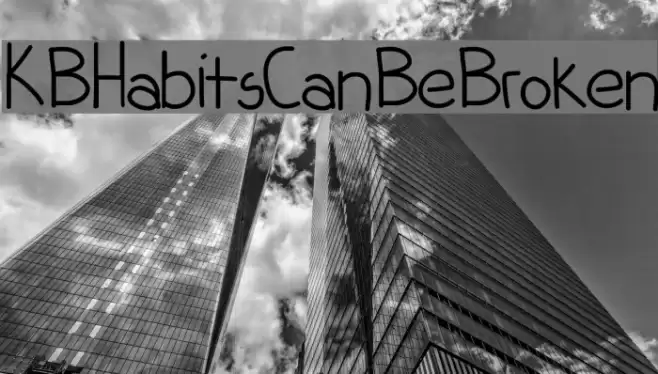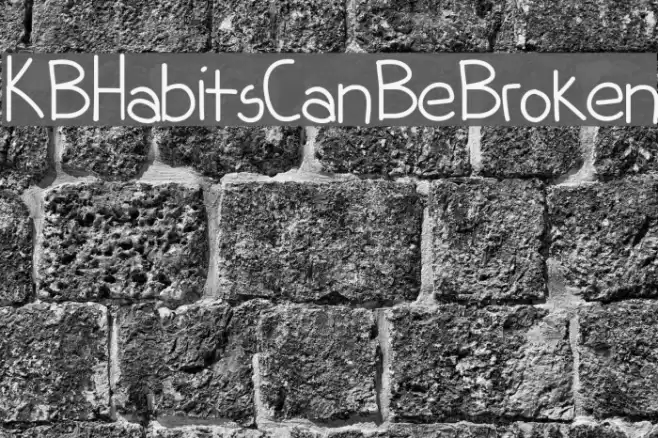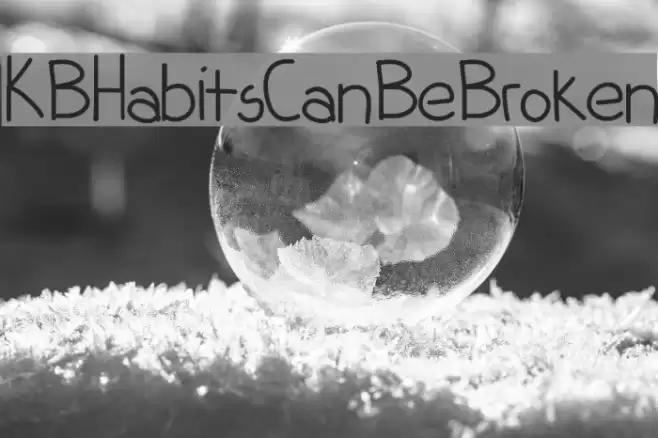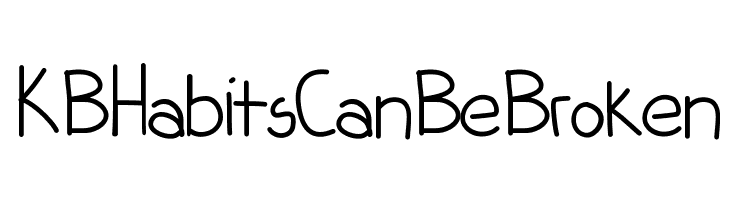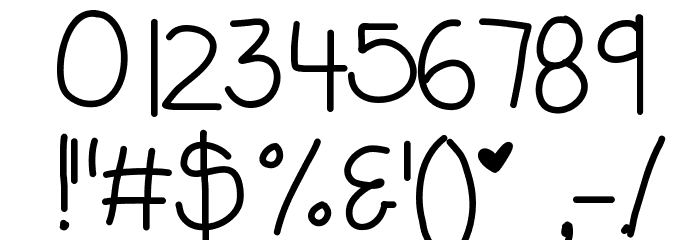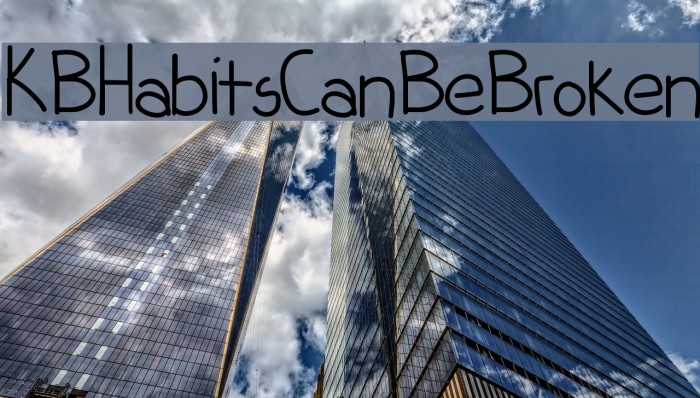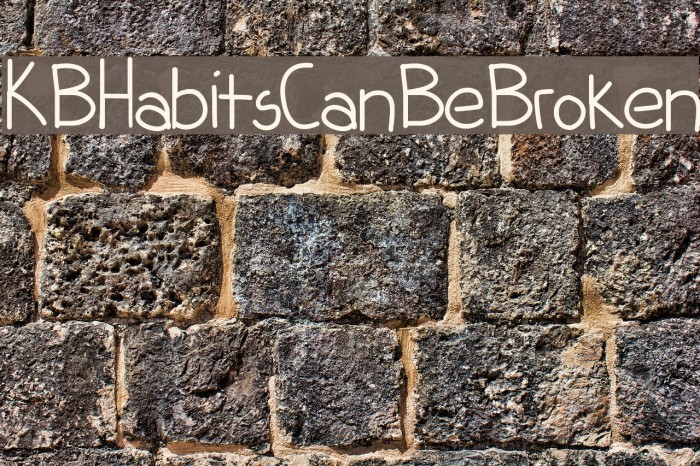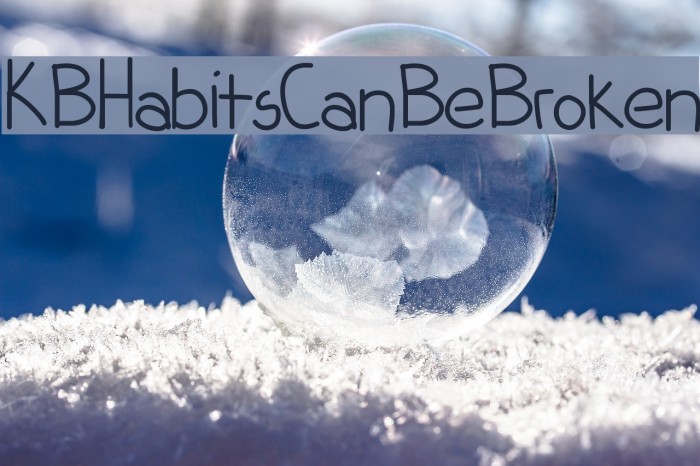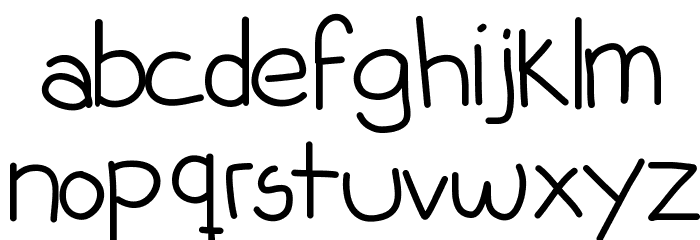
KBHabitsCanBeBroken Font
KBHabitsCanBeBroken Description
This font features a playful and casual handwritten style, characterized by its smooth, rounded edges and consistent stroke width. The uppercase letters are slightly taller than the lowercase, maintaining a uniform appearance. The numerals and special characters are designed to match the overall aesthetic, with a whimsical touch that adds personality. The font's simplicity and readability make it suitable for a variety of informal applications, while its unique charm ensures it stands out.
A playful, casual handwritten font with smooth, rounded edges from Uncategorized fonts.
- Proposed Projects: Ideal for children's books, greeting cards, personal blogs, and informal branding projects.
- Overall Style: Casual
- Use Case: Headlines, Informal text, Personal projects